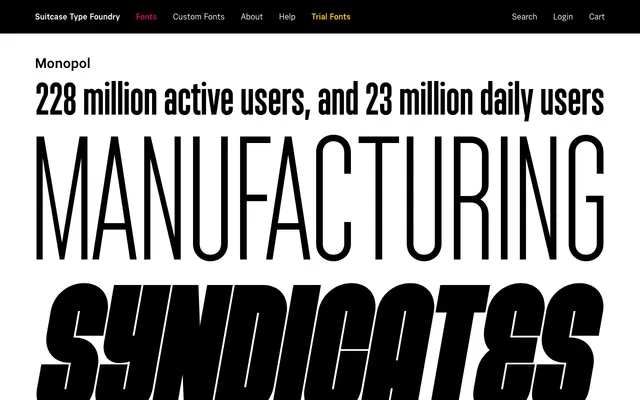
A geometric sans-serif from Prague-based Suitcase Type Foundry, offering a clean and structured approach to Latin typography.
Monopol sits within the geometric sans-serif tradition as produced by Suitcase Type Foundry, a Prague studio known for carefully constructed Latin typefaces. Details on weights, italics and language coverage were not available from the page at time of cataloguing. Suitable for editorial and identity work where geometric structure is required without decorative flourish.
The name and foundry context suggest a clean geometric sans-serif in the Central European tradition; without further page content, classification is inferred from typical Suitcase Type Foundry output and the name's connotations.